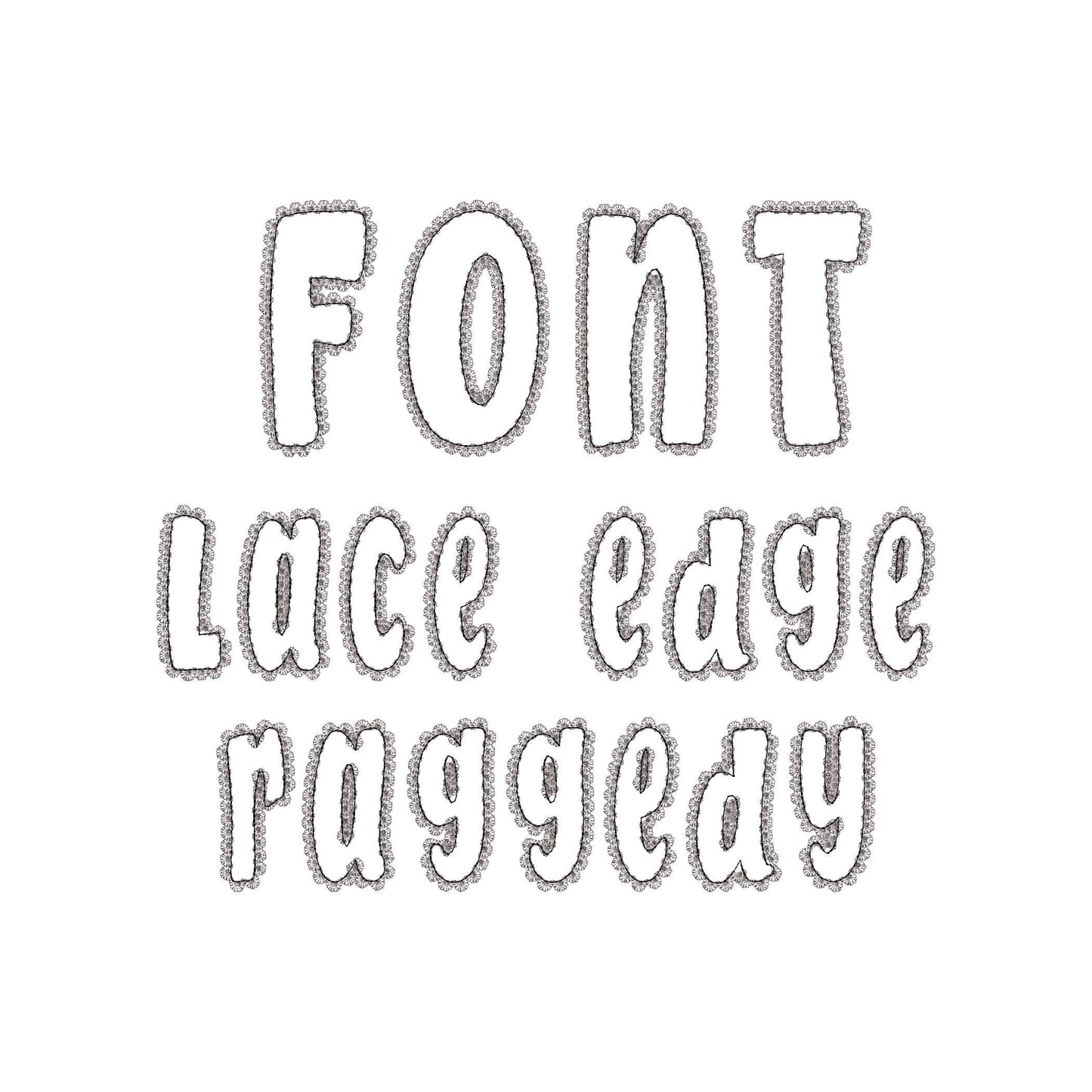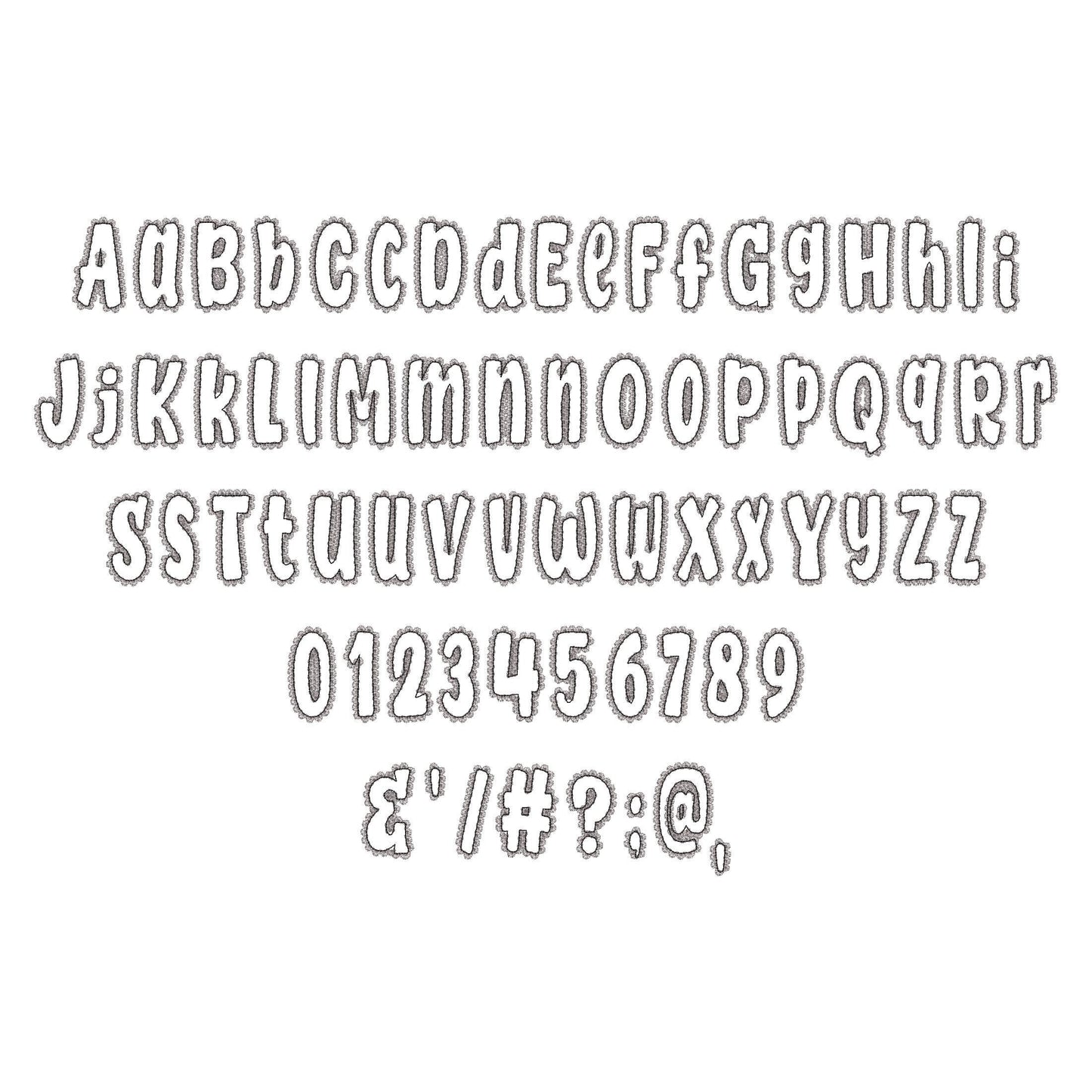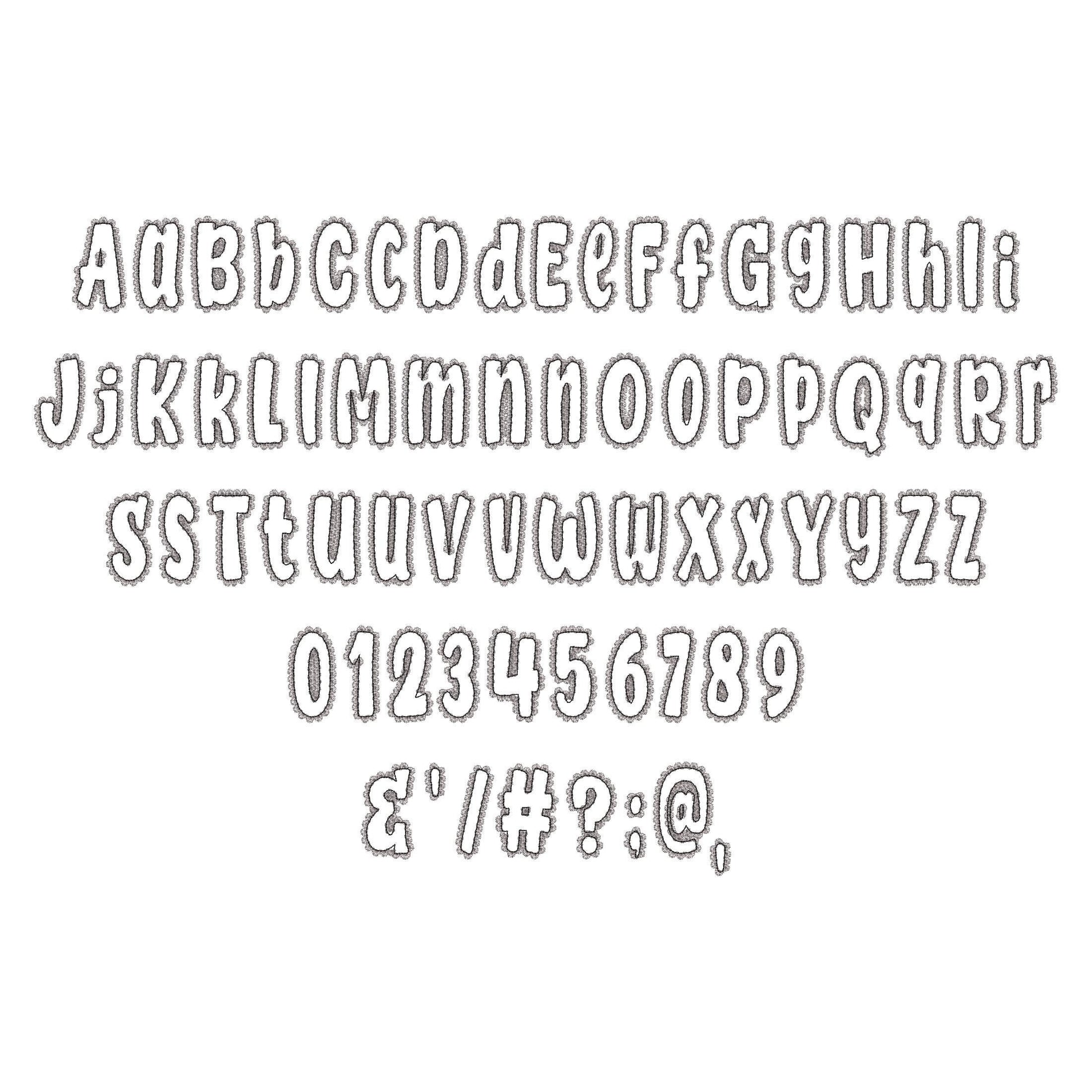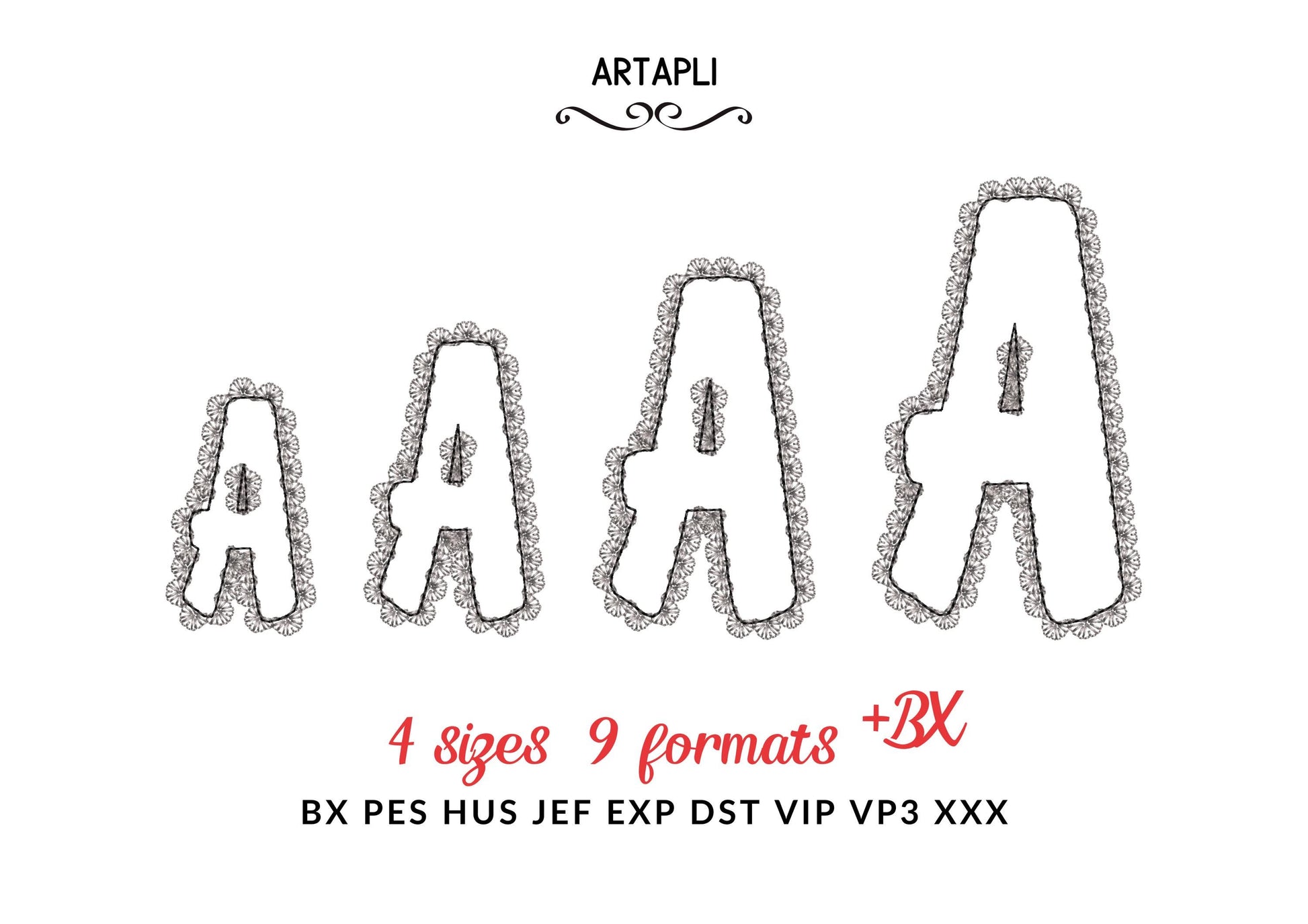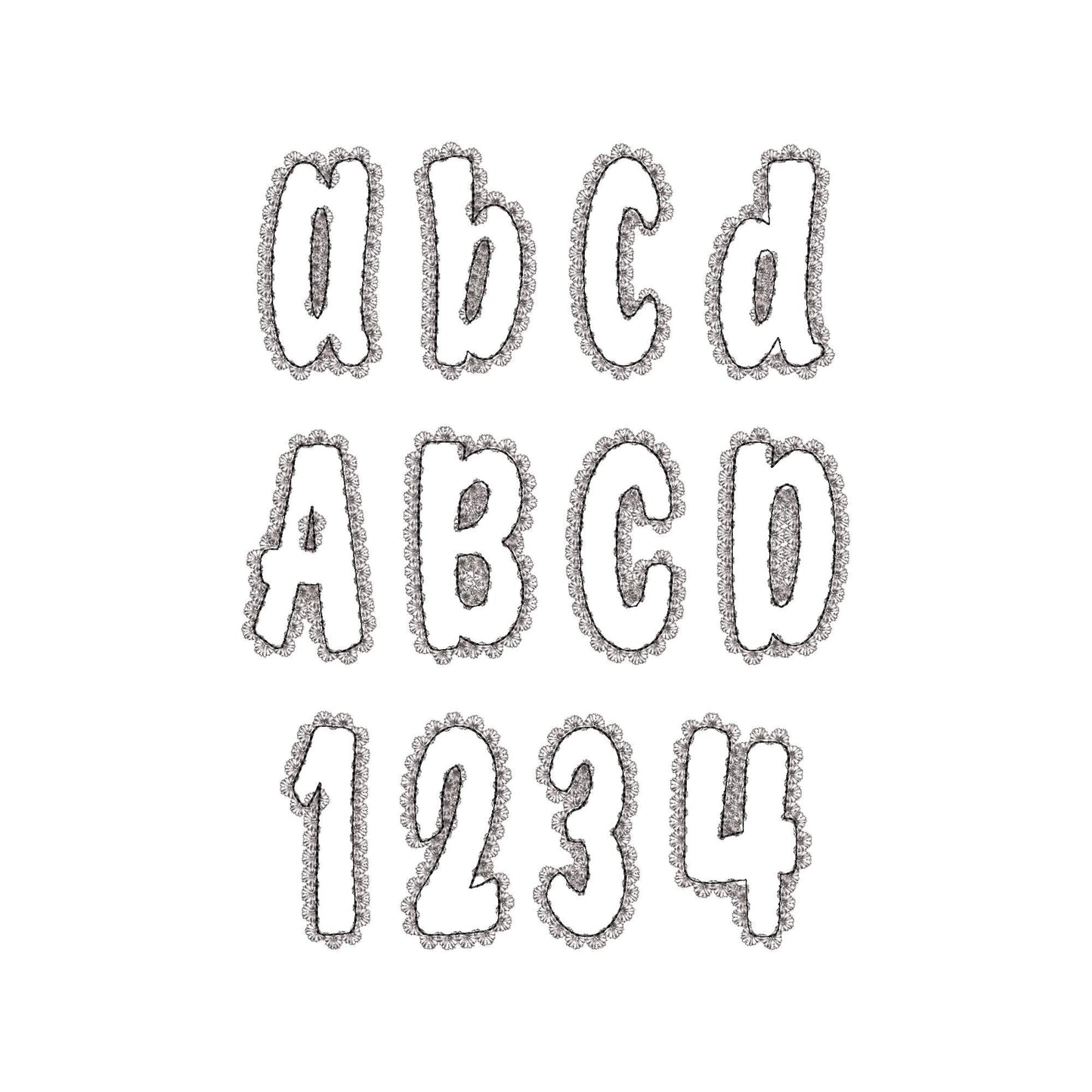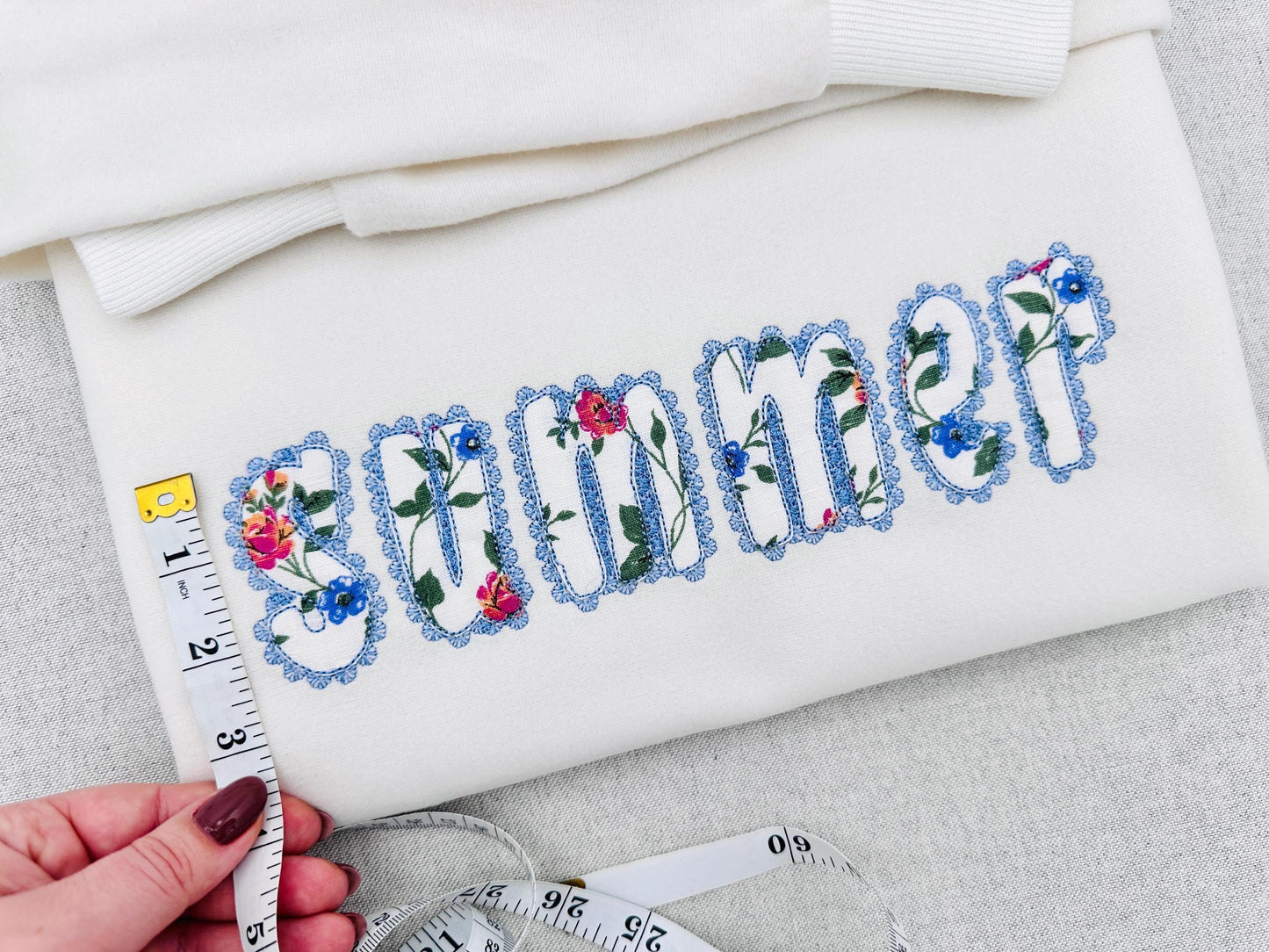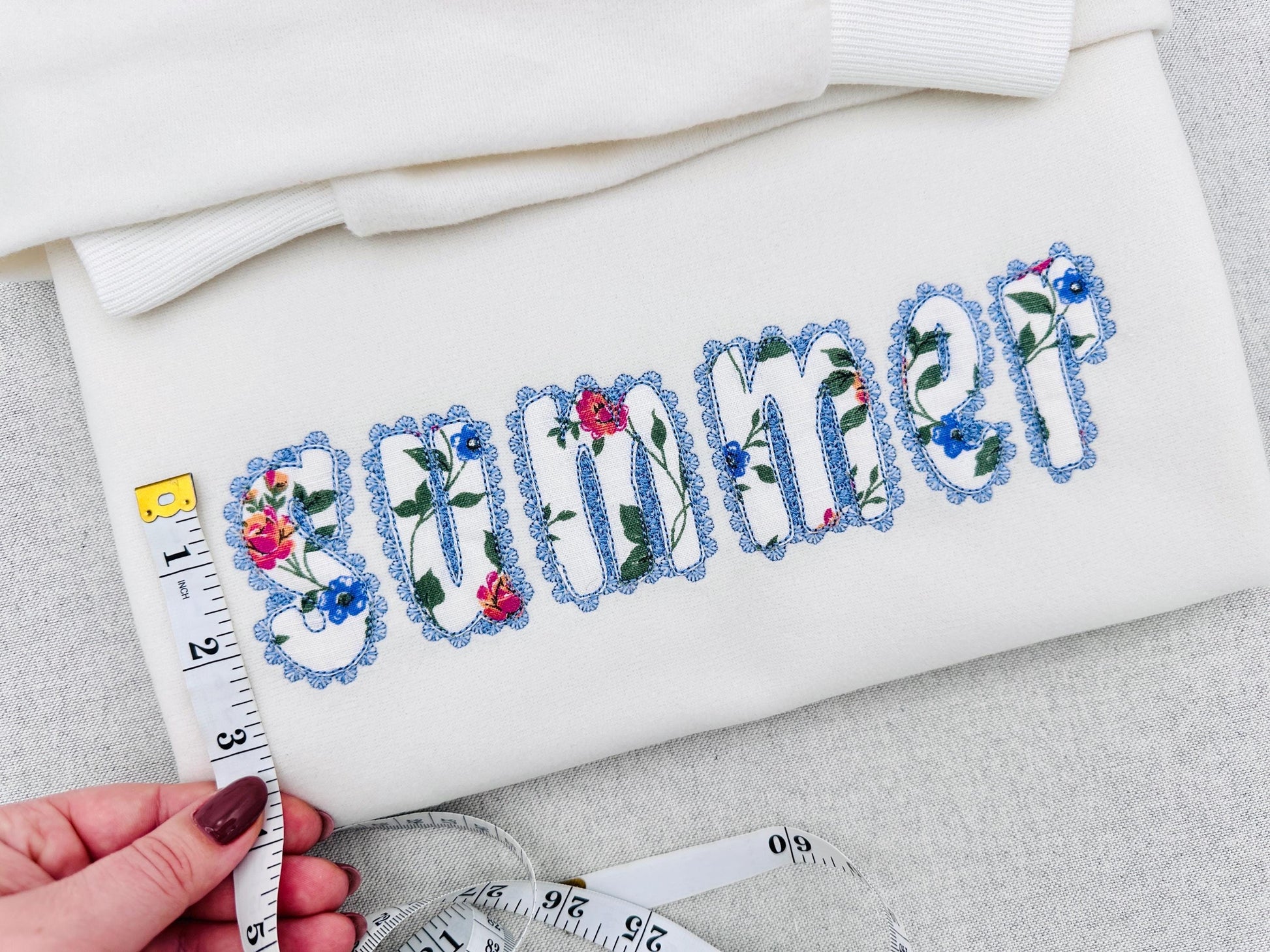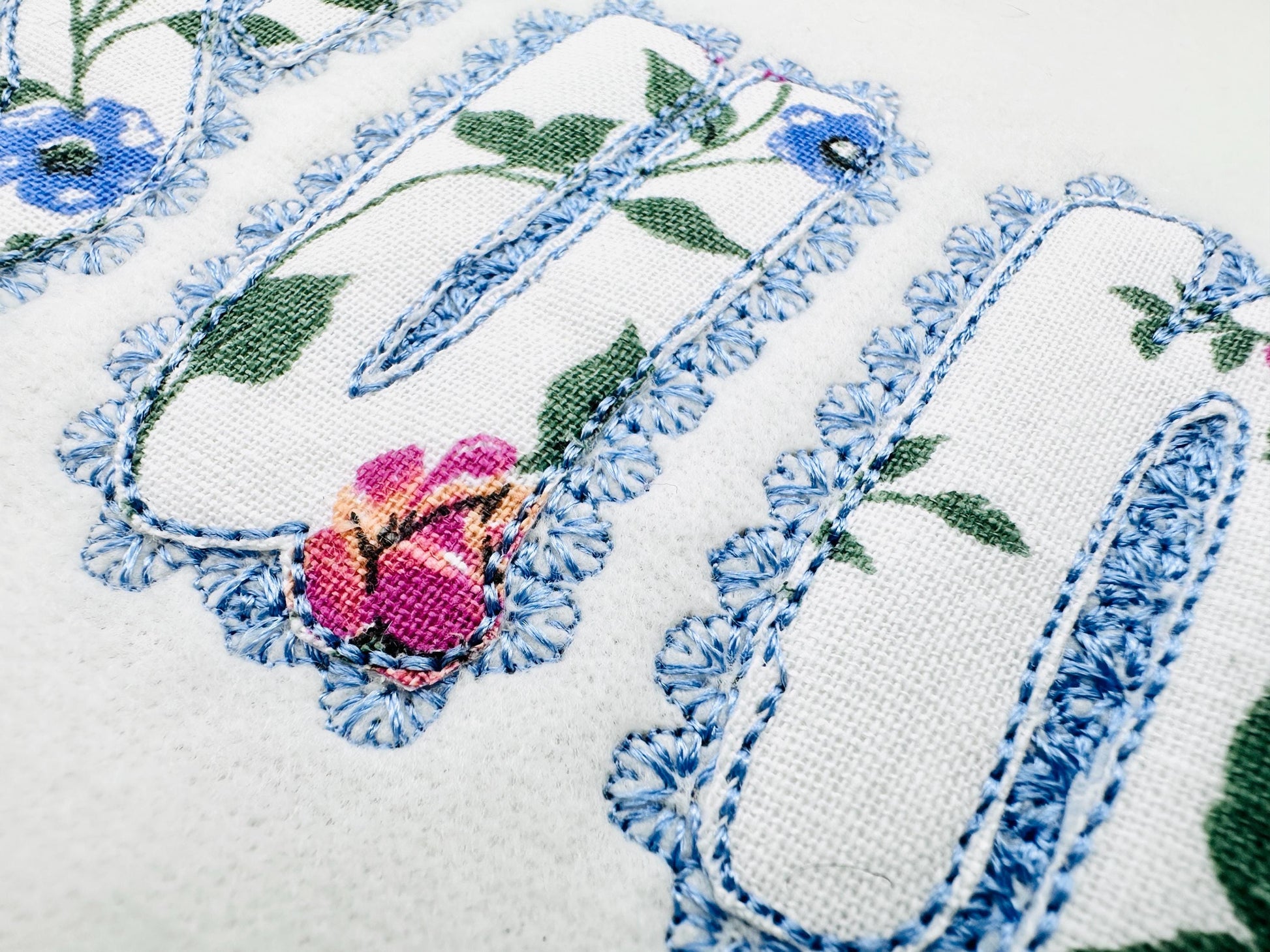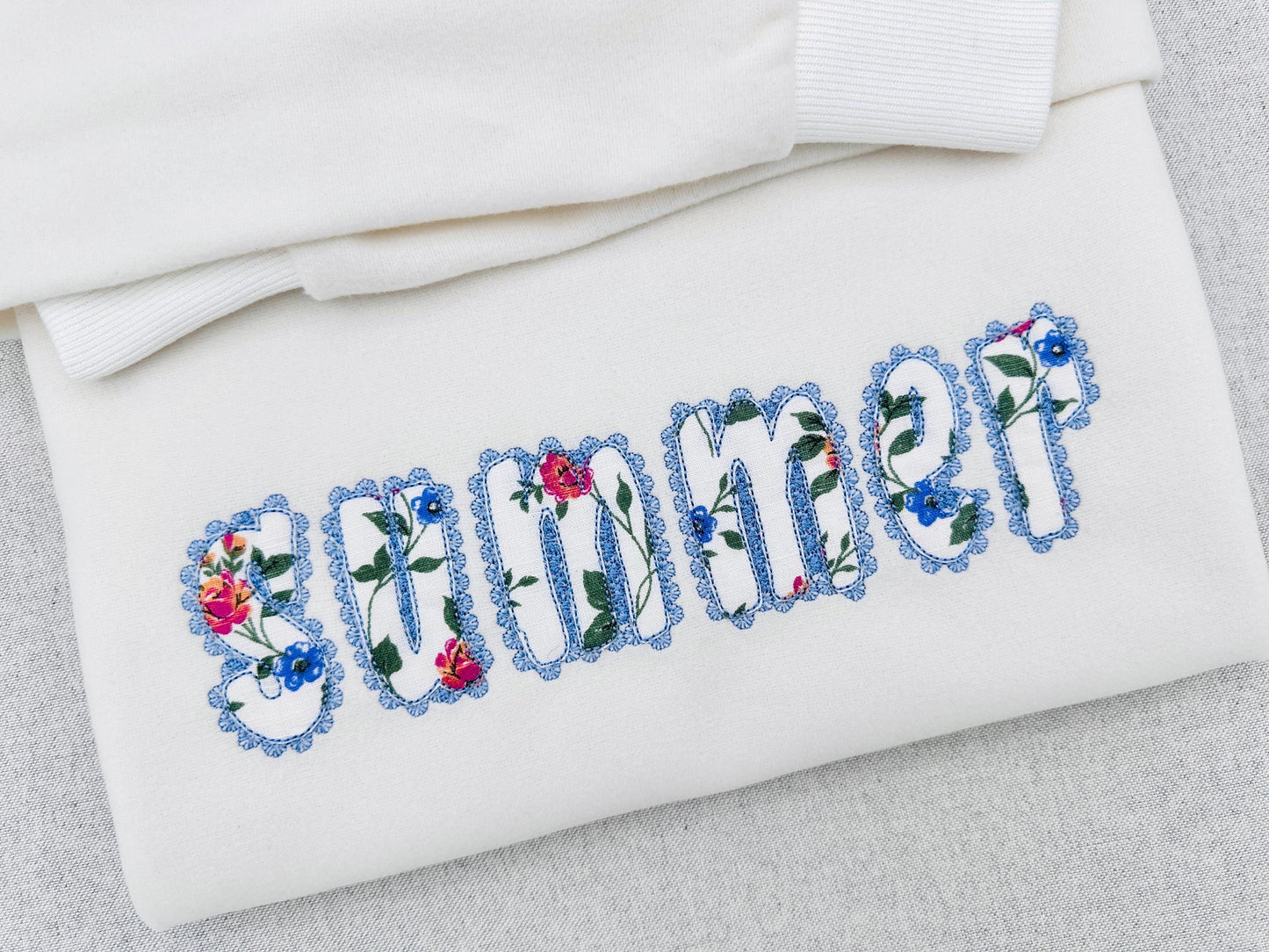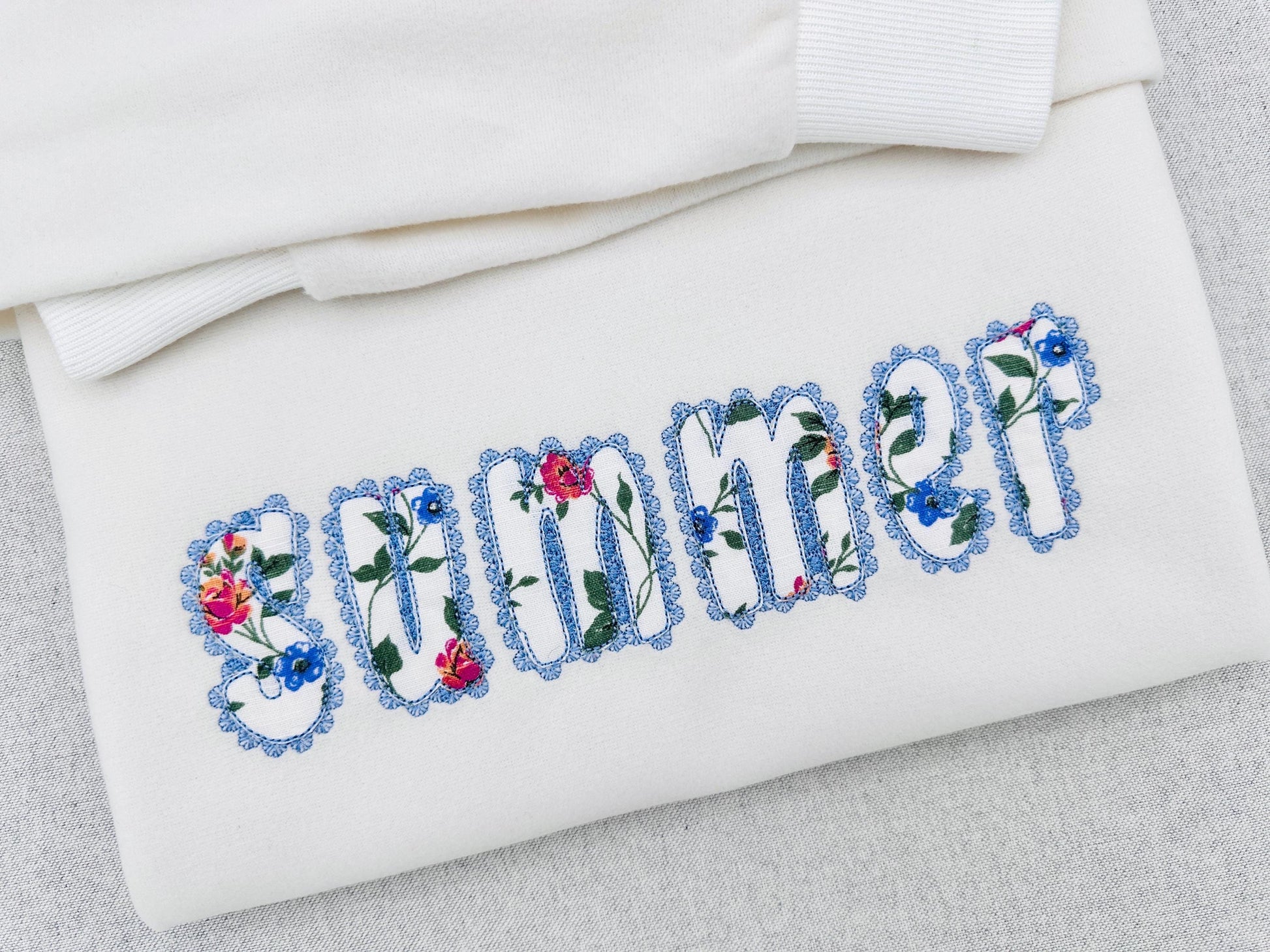
Lace Edge Font Raggedy Applique
Or click to open the linkA vintage raggedy edge applique font with a delicate lace edge. Handmade-looking names and monograms for girls' clothes and gifts.
The letters come in four sizes: 2.3, 2.7, 3.3 and 4 inches. Open, raggedy applique edges with a lace-style stitched edge, and the fabric shows through. Includes uppercase and lowercase letters A to Z, numbers 0 to 9 and punctuation.
- Lace edge raggedy applique font